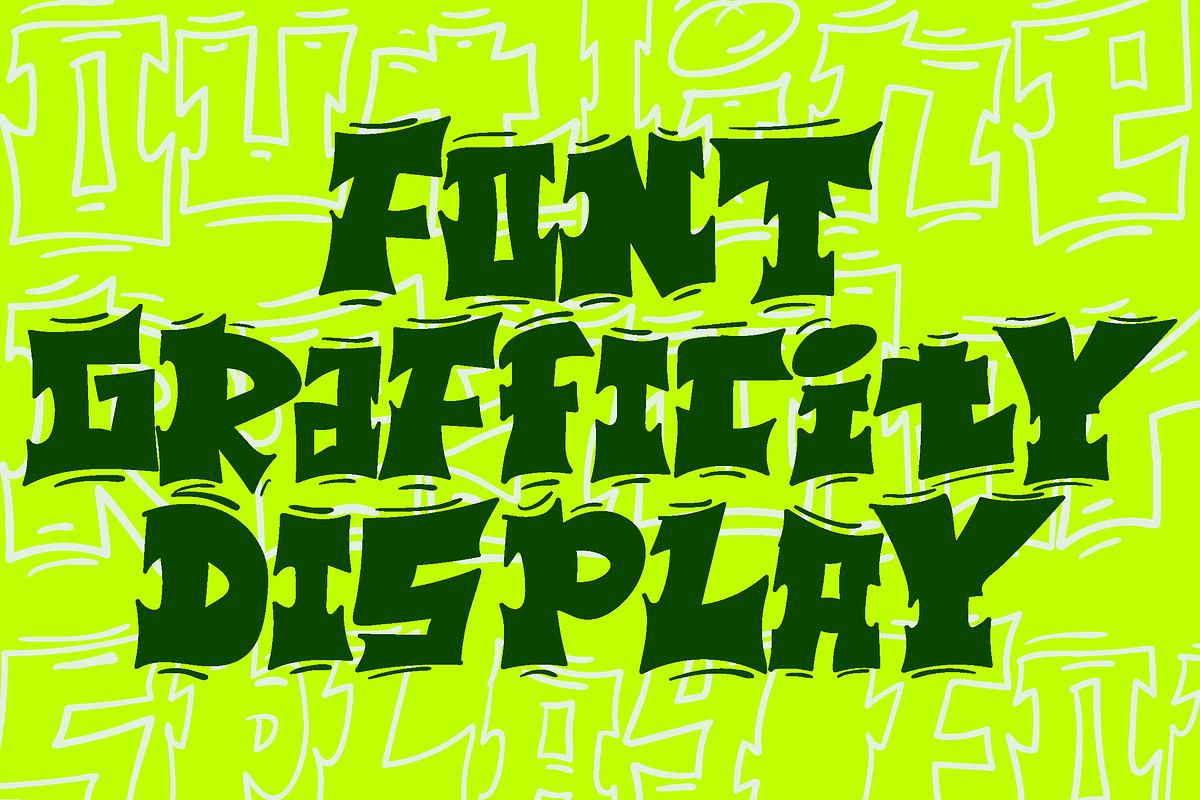
Grafficity - Display Font Free Download
Grafficity - Display Font is a bold and expressive typeface that encapsulates the raw energy and creativity of street art. Designed by Font Castle, this graffiti-inspired font is perfect for urban-themed projects, apparel designs like t-shirts and hoodies, and any creative work that seeks a retro, rebellious vibe.
• Edgy Letterforms: Grafficity features dynamic and edgy letterforms that mirror the spontaneity of graffiti art, making your designs stand out with an authentic street-art flair.
• Versatile Applications: Ideal for a variety of projects including branding, posters, merchandise, and digital media that aim for an urban or rebellious aesthetic.